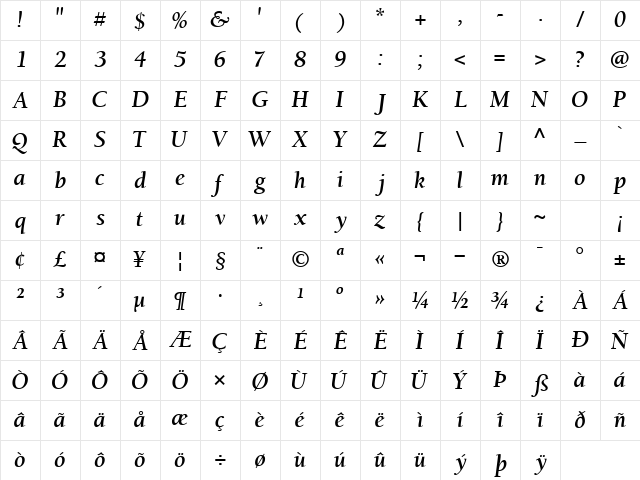
BerkeleyRetrospectiveSSK BoldItalic
Design Context for BerkeleyRetrospectiveSSK
BerkeleyRetrospectiveSSK wears its vintage influences proudly, with letterforms that recall mid-century signage, classic packaging, and nostalgia-driven design. The slanted form adds forward momentum and visual energy. Its bold stroke weight gives it real presence on the page.
Font Pairing: Combine BerkeleyRetrospectiveSSK with a simple slab or neutral sans - period-accurate companions reinforce the vintage feel without competing for attention.
Pro Tip: Lean into BerkeleyRetrospectiveSSK's period character by pairing it with aged paper textures, muted colour palettes, and vintage illustration styles.